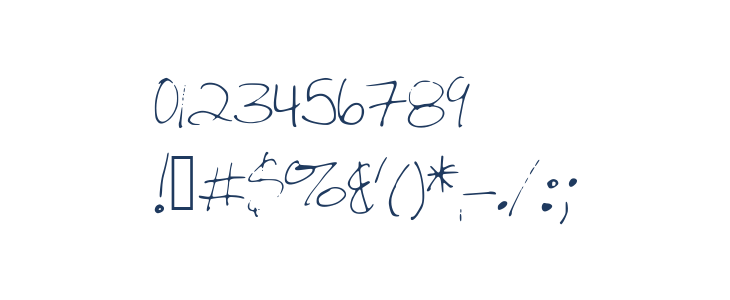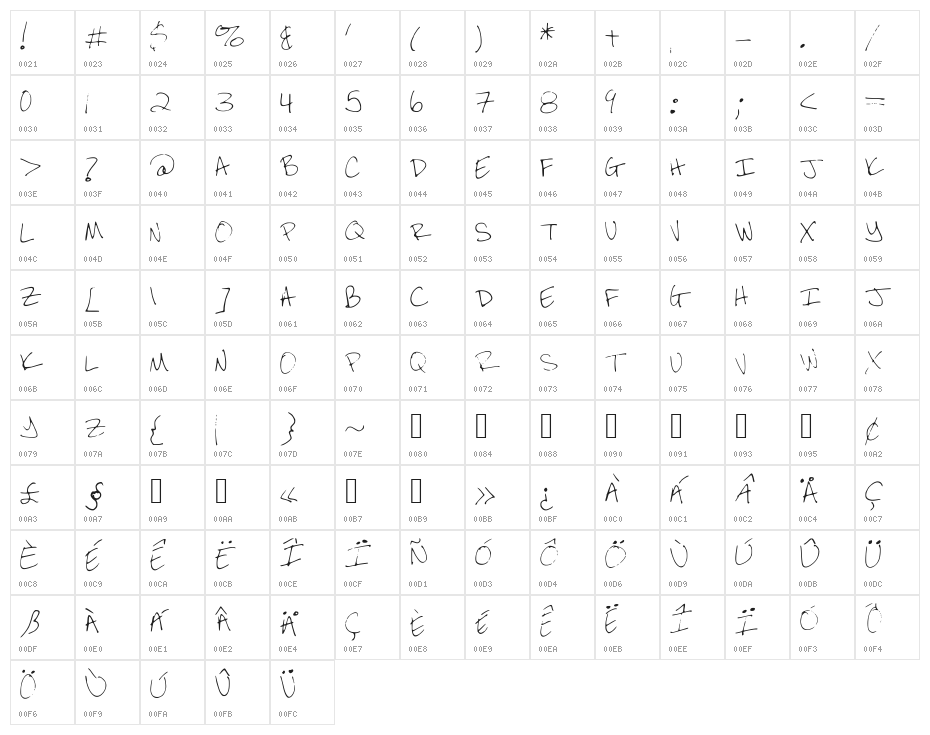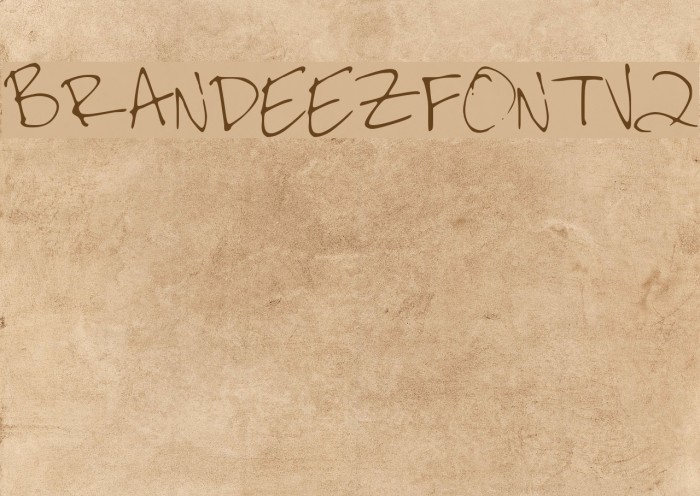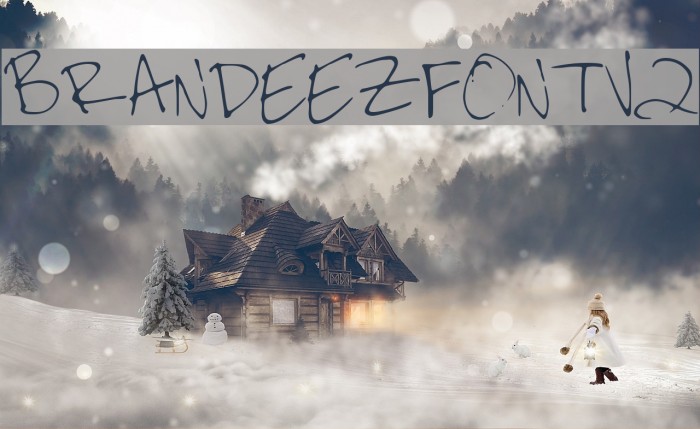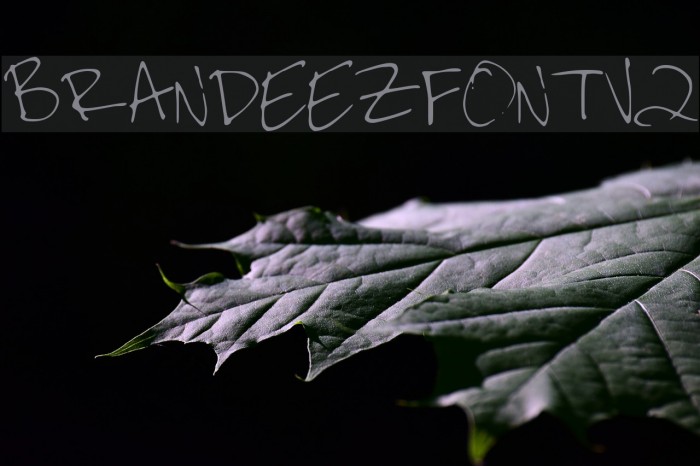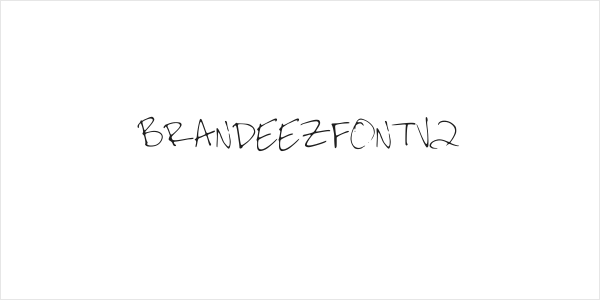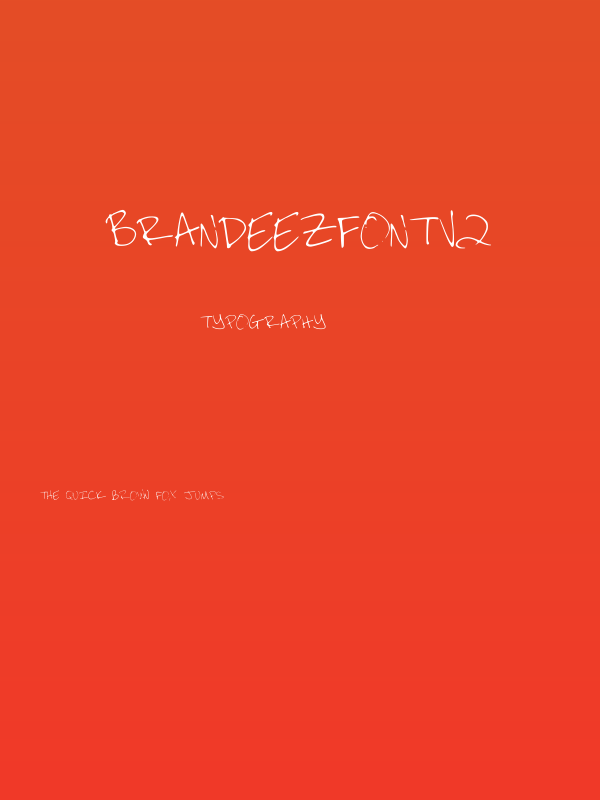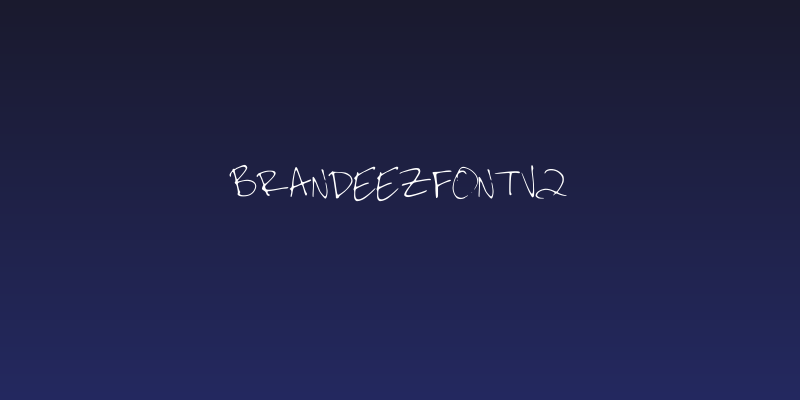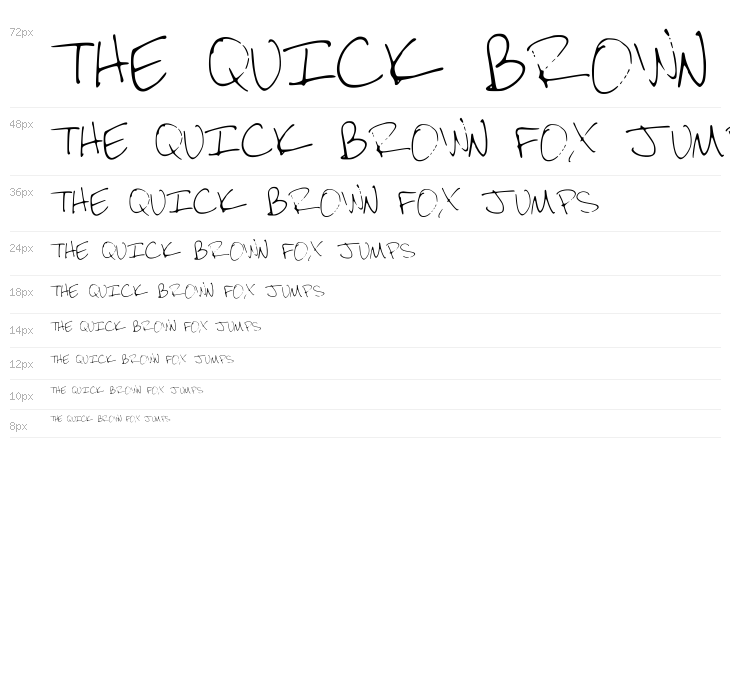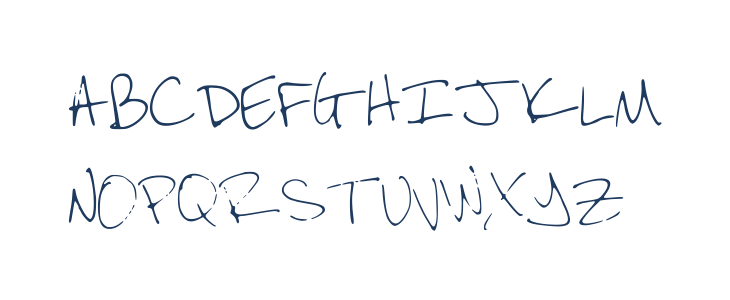
BRANDEEZFONTV2 Font
BRANDEEZFONTV2 Description
This font exudes a casual and playful handwritten style, characterized by its loose and flowing strokes. The letters are slightly slanted, giving an informal and dynamic appearance. The uppercase and lowercase letters maintain a consistent style, with rounded edges and varying stroke widths that add to its charm. The numerals and special characters follow the same aesthetic, ensuring a cohesive look across all text. This font is perfect for projects that require a personal touch, such as invitations, greeting cards, or creative branding materials.
BRANDEEZFONTV2 UPPERCASE
BRANDEEZFONTV2 LOWERCASE
BRANDEEZFONTV2 OTHER CHARS